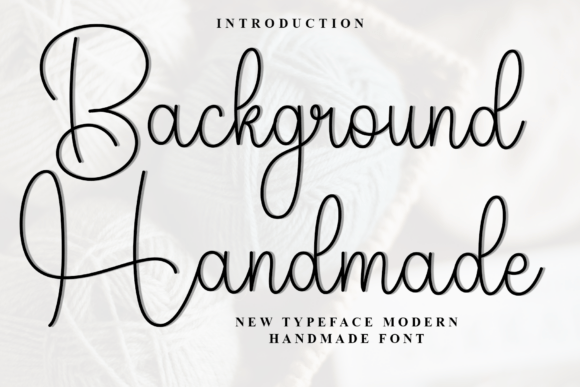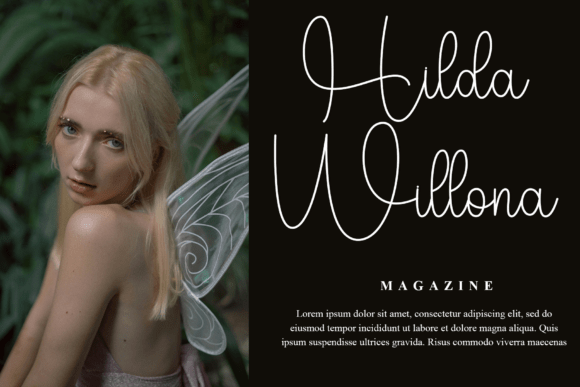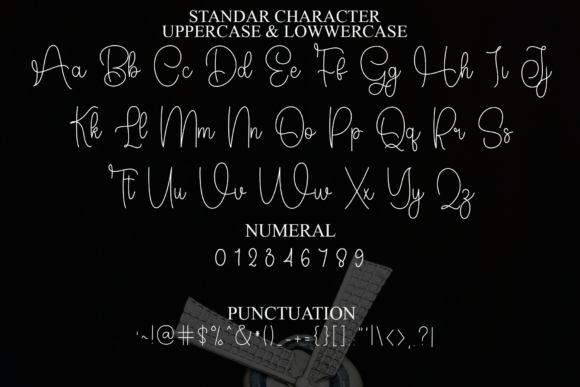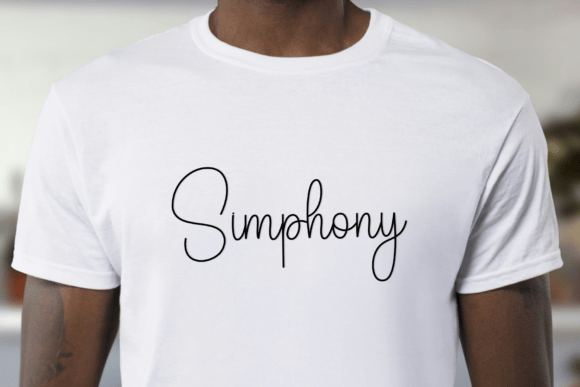
About the Background Handmade Font
The wait is over! The incredible Background Handmade Font is now available for your design toolkit. Background Handmade is a festive and merry typeface that captures the spirit of the holiday season. With its decorative elements and whimsical flair, it adds a touch of enchantment to your designs. Perfect for greeting cards, gift tags, and holiday-themed projects, this font brings a cheerful and nostalgic ambiance to your words. Let your typography shine with the magic of Beautiful Font!
Background Handmade thrives in applications requiring a celebratory and whimsical feel. Ideal uses include short headlines, logos for artisan brands, and packaging for festive products. Its decorative nature makes it less suitable for body text or UI elements where readability is paramount. Avoid using it for lengthy paragraphs or complex layouts.
The font’s playful personality pairs well with clean sans-serif fonts like Open Sans for body text, creating a balanced contrast. For a more sophisticated feel, consider pairing it with a classic serif like Garamond or a slightly more modern geometric sans-serif such as Montserrat. Avoid pairing it with other highly decorative fonts, as this could lead to visual overload.
Background Handmade projects a joyful, slightly nostalgic mood, perfect for brands emphasizing handcrafted quality, artisanal goods, or seasonal celebrations. Its charm lies in its detailed ornamentation; use this to your advantage in projects where visual interest is key.